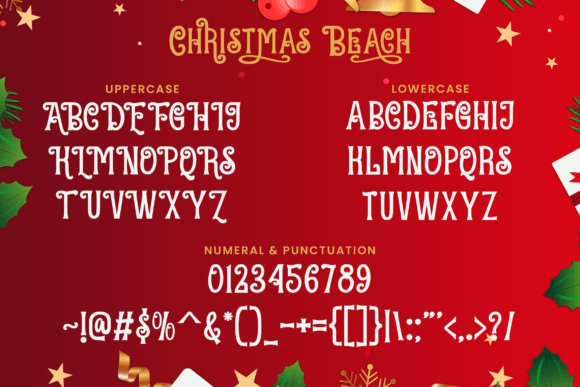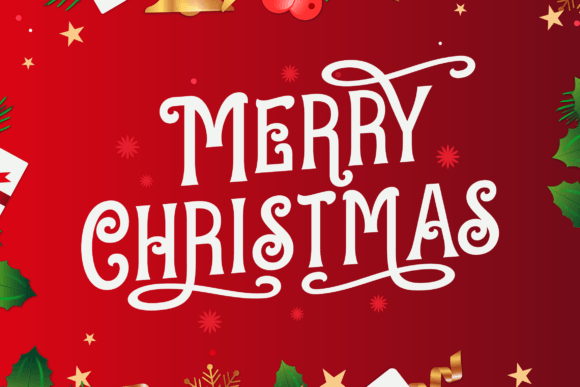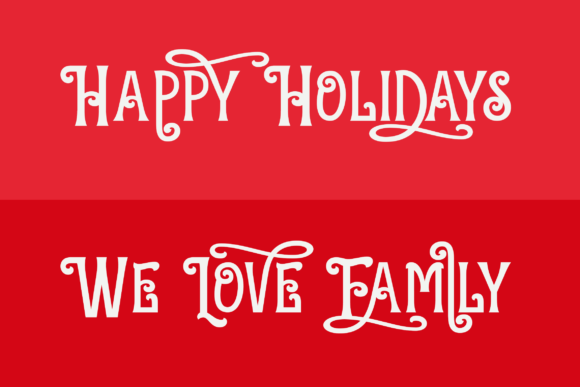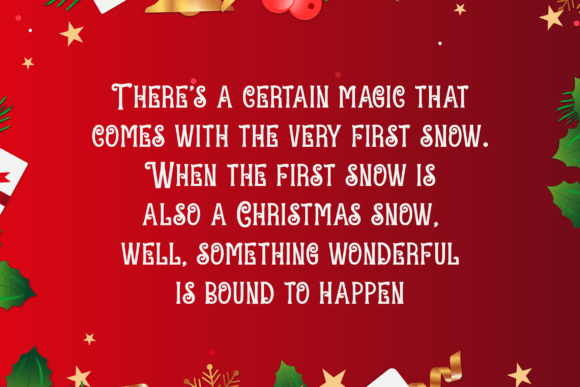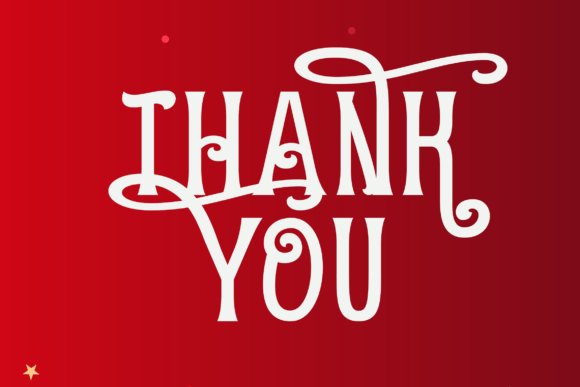
Christmas Beach Font: Elevate Your Winter Break Creations with Festive Flair
As the winter season approaches, designers and crafters are on the lookout for the perfect font to add a touch of festive magic to their creations. If you’re searching for a font that exudes class and sophistication, look no further than the Christmas Beach Font. This stunning display font is designed to bring your winter break designs to life, and in this article, we’ll dive into its features, benefits, and uses.
What is Christmas Beach Font?
Christmas Beach Font is a beautifully crafted display font that embodies the essence of the winter season. Its elegant and refined design makes it perfect for a wide range of applications, from holiday-themed projects to winter-inspired creations. Whether you’re working on a festive poster, a merry greeting card, or a seasonal craft project, this font is sure to add a touch of sophistication and style.
Key Features of Christmas Beach Font
- Festive and Classy Design: Christmas Beach Font boasts a unique and elegant design that’s perfect for winter break creations.
- PUA Encoded: This font is PUA (Private Use Area) encoded, which means you can easily access all the glyphs and swashes to add a personal touch to your designs.
- Versatile: This font can be used for a wide range of applications, from digital projects to print materials.
Benefits of Using Christmas Beach Font
So, why choose Christmas Beach Font for your winter break creations? Here are just a few benefits of using this amazing font:
- Adds a Touch of Elegance: Christmas Beach Font brings a level of sophistication and refinement to your designs, making them stand out from the crowd.
- Saves Time: With its PUA encoding, you can quickly access all the glyphs and swashes you need, saving you time and effort.
- Increases Creativity: The unique design and versatility of Christmas Beach Font will inspire you to create something truly special and unique.
Uses for Christmas Beach Font
Christmas Beach Font is perfect for a wide range of winter break creations, including:
- Holiday Posters and Flyers: Create eye-catching posters and flyers for your holiday events or promotions.
- Greeting Cards and Invitations: Add a touch of elegance to your holiday greeting cards and invitations.
- Seasonal Crafts: Use Christmas Beach Font to create beautiful and unique seasonal crafts, such as ornaments, gift tags, and more.
- Digital Projects: Incorporate Christmas Beach Font into your digital projects, such as social media graphics, blog posts, and email newsletters.
Tips for Using Christmas Beach Font
To get the most out of Christmas Beach Font, here are a few tips to keep in mind:
- Experiment with Different Sizes and Colors: Play around with different font sizes and colors to find the perfect combination for your design.
- Combine with Other Fonts: Pair Christmas Beach Font with other fonts to create a unique and eye-catching design.
- Use the Glyphs and Swashes: Take advantage of the PUA encoding and use the glyphs and swashes to add a personal touch to your design.